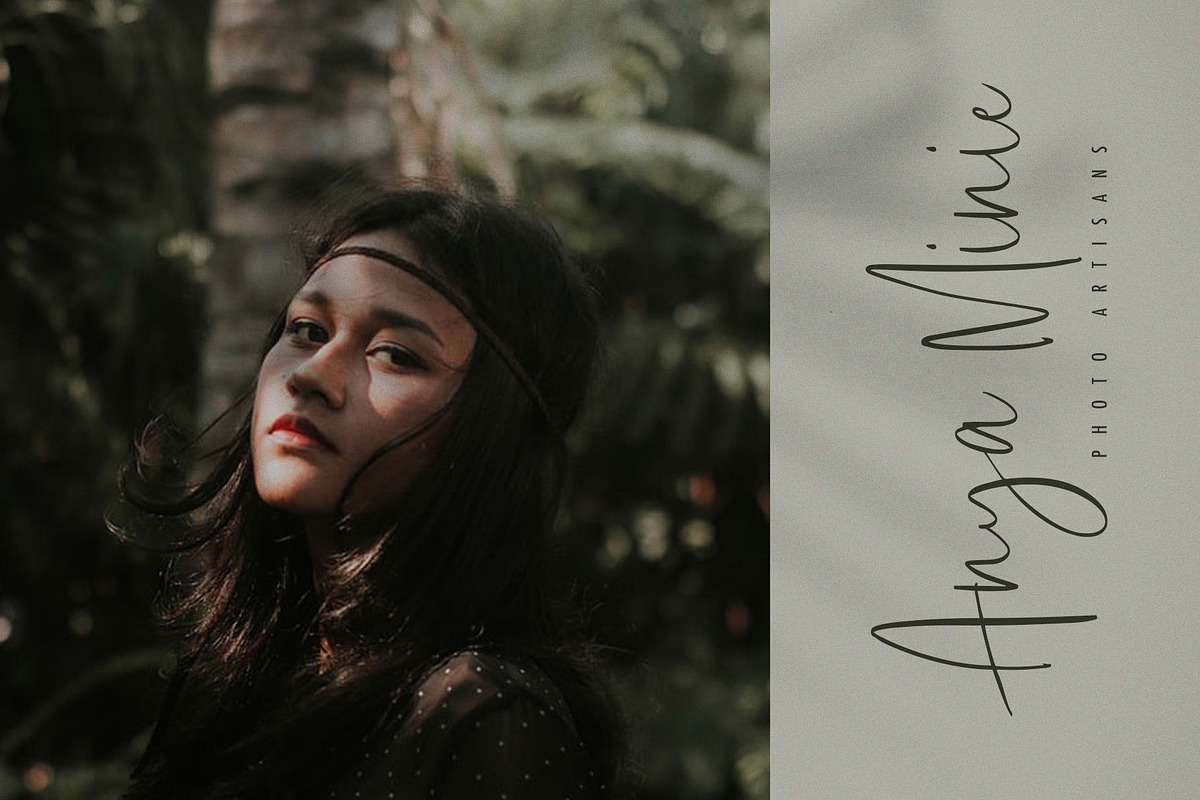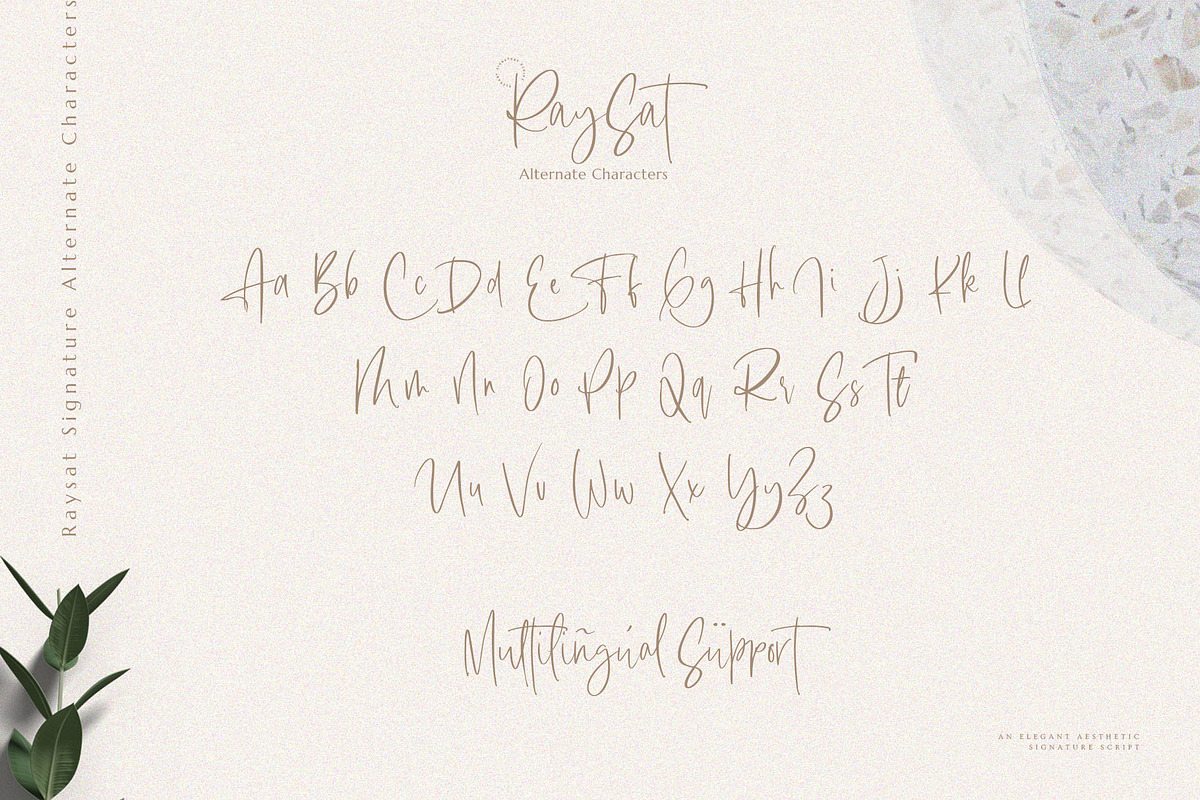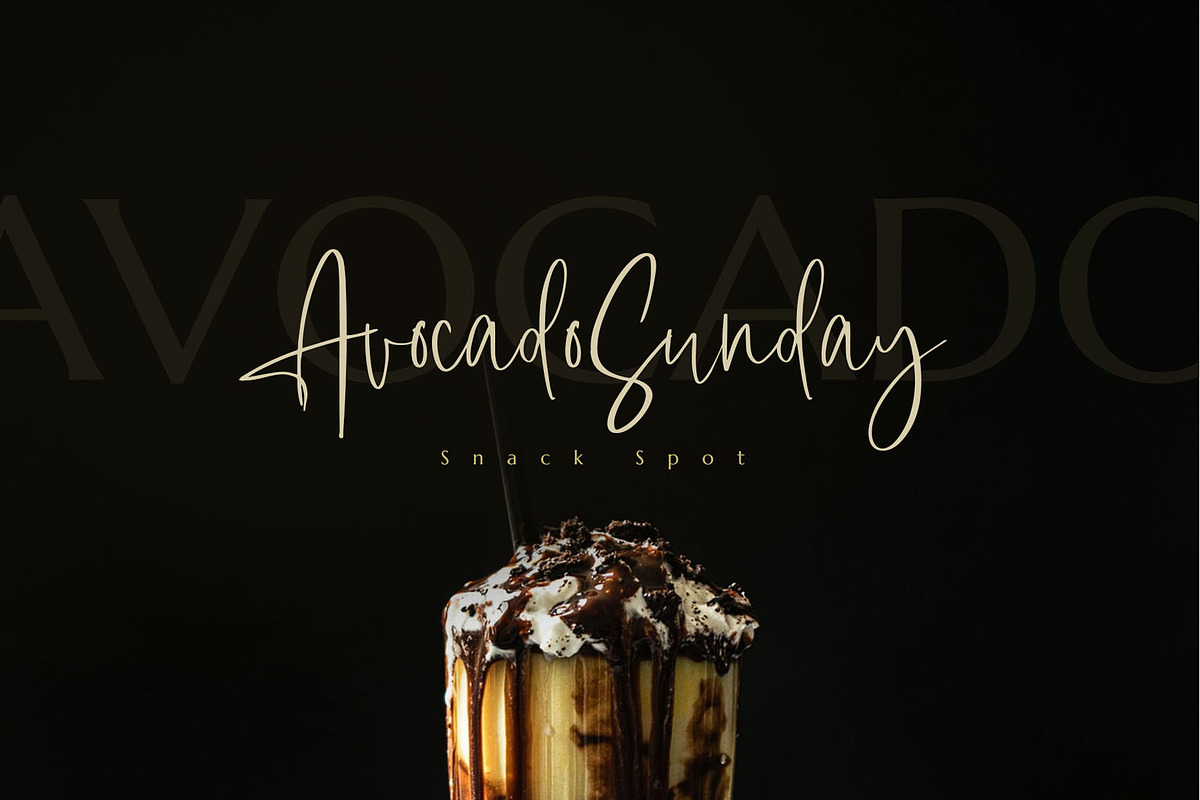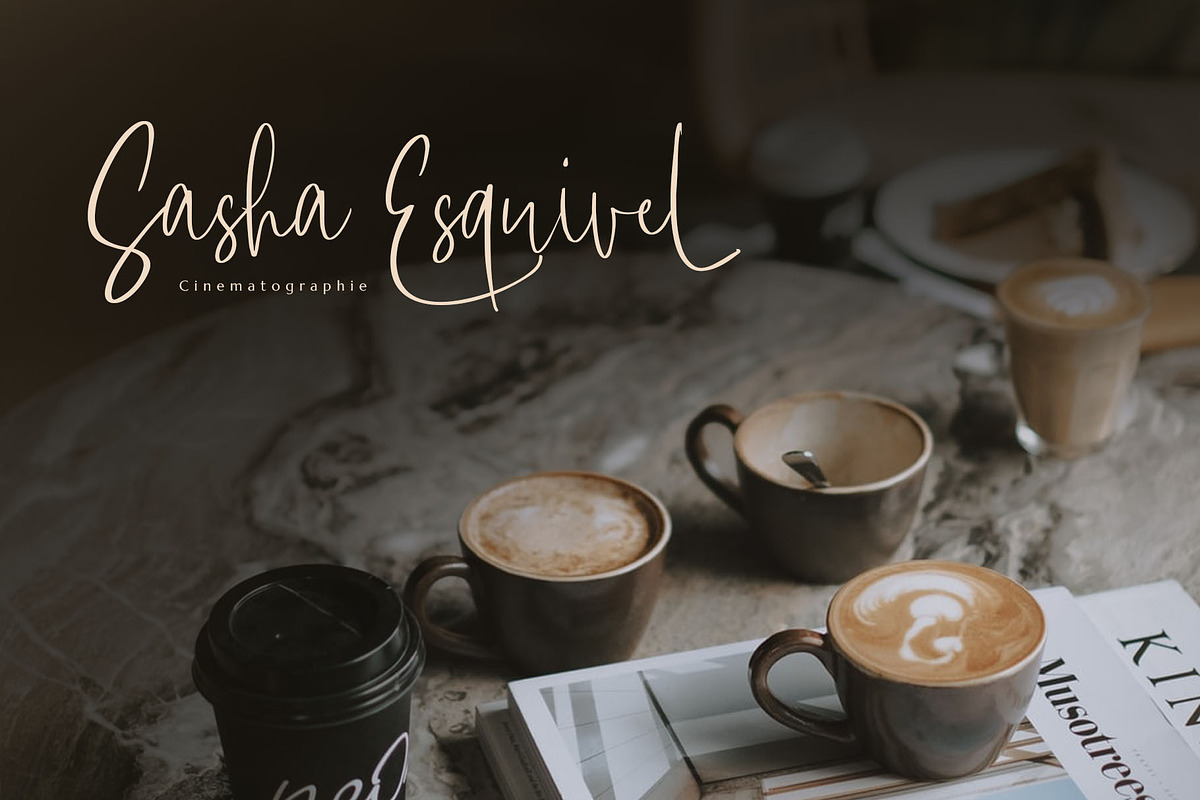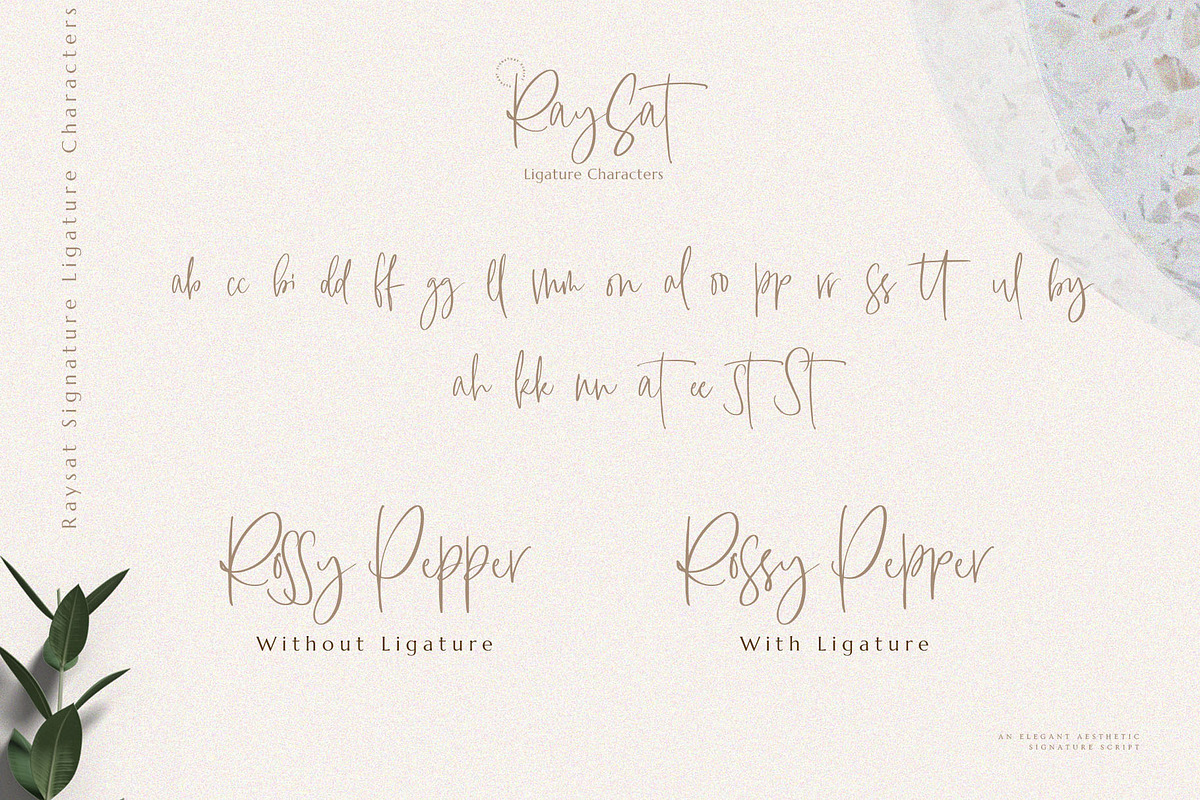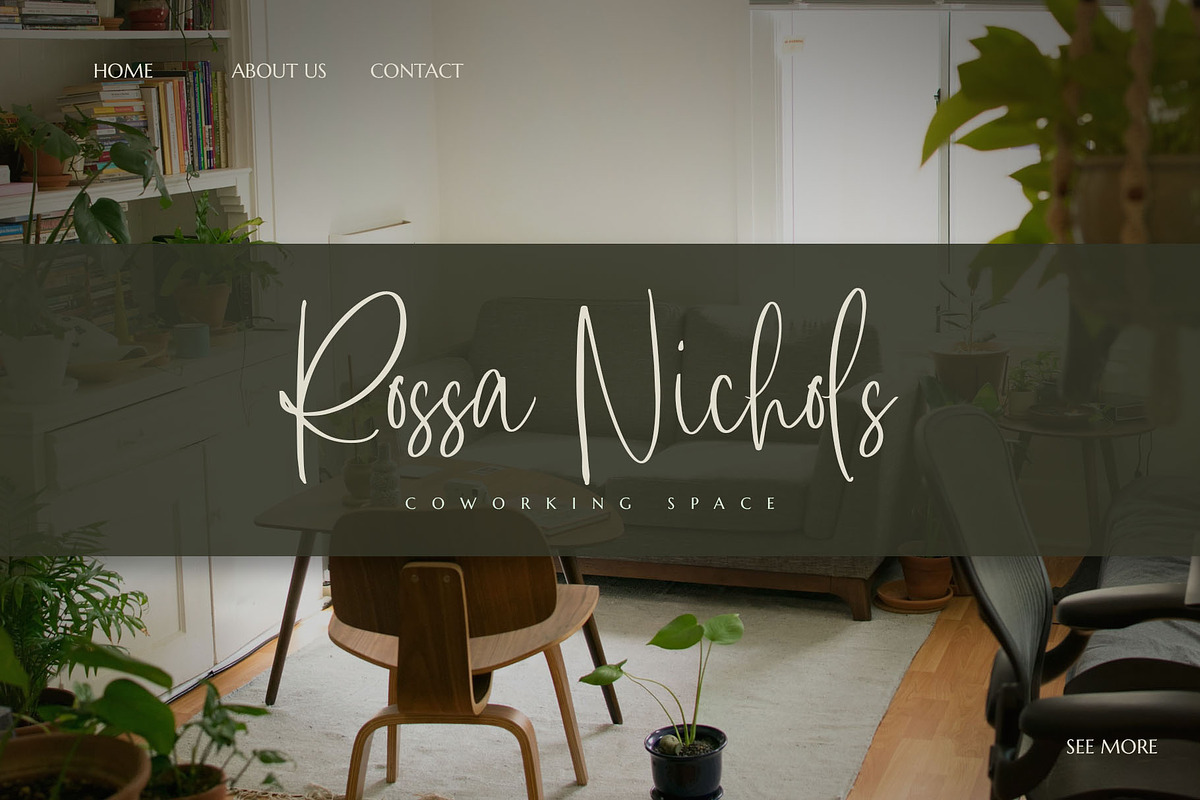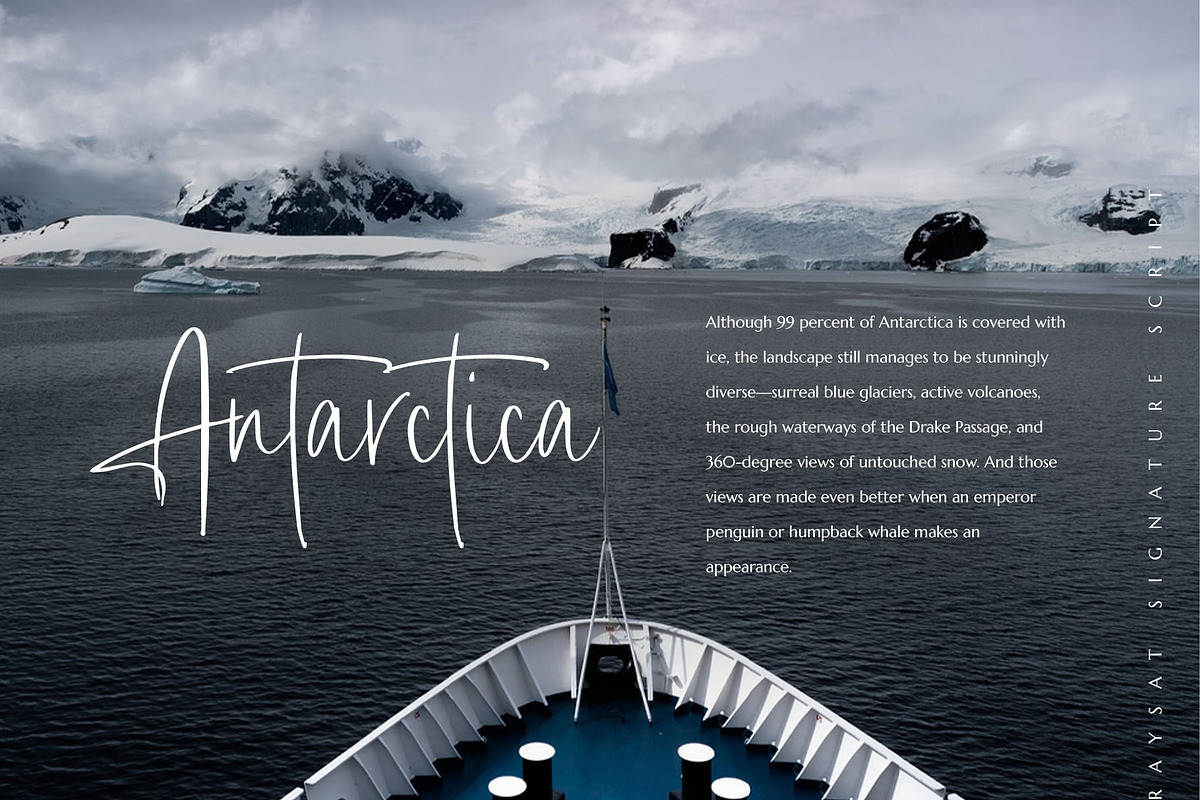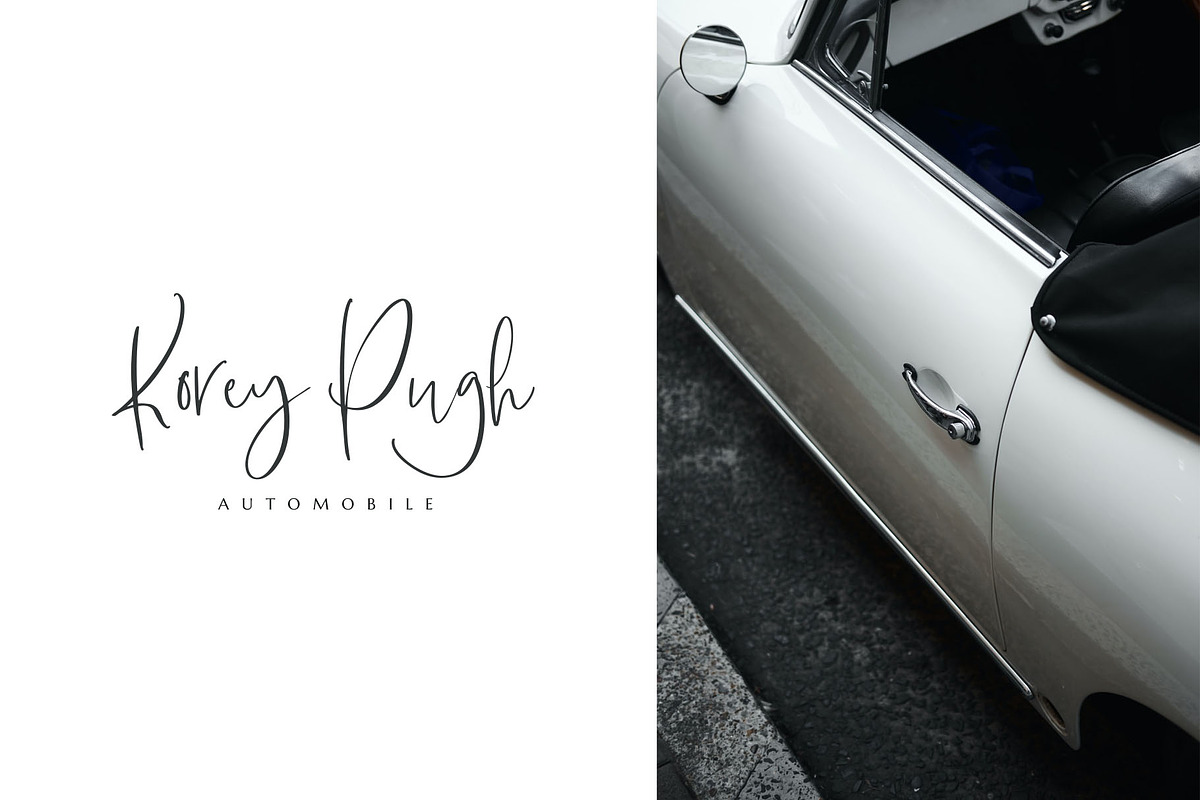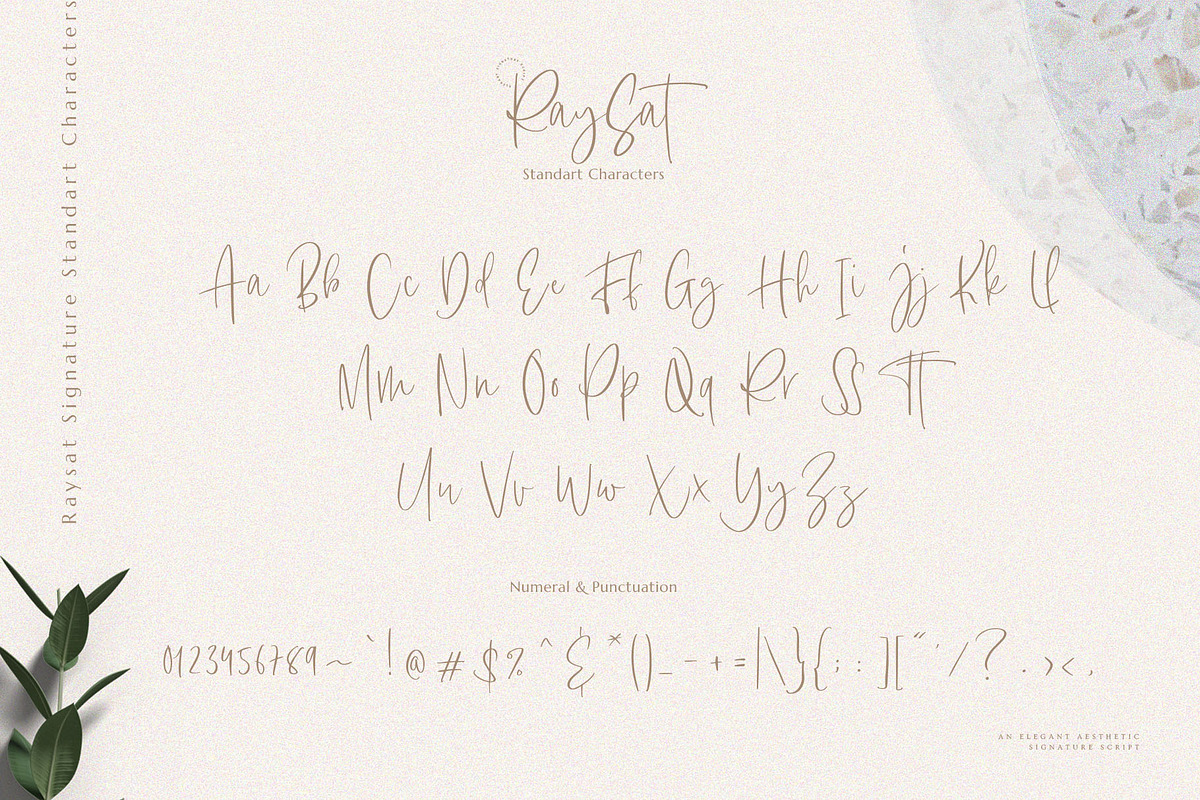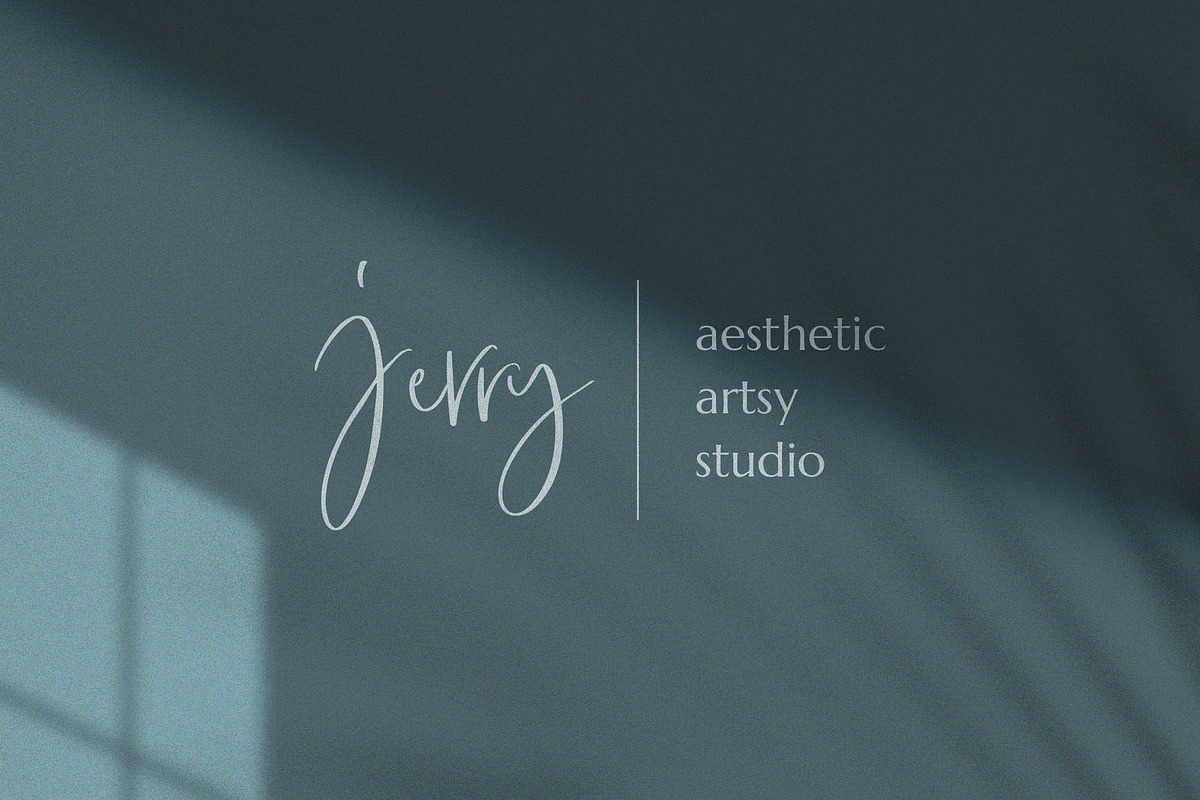
Raysat - Elegant Signature
Hi! Meet our Raysat!
Raysat is a magical handwritten font carefully created with a touch of elegance. This is a beautiful combination of timeless elegance and authentic calligraphy. It features an incredibly classic style, while still keeping a friendly feel. This font is perfect for logo, invitation, stationery, wedding designs, social media posts, advertisements, product packaging, product designs, label, photography, watermark, special events or anything and fonts are provided in TTF & OTF formats.